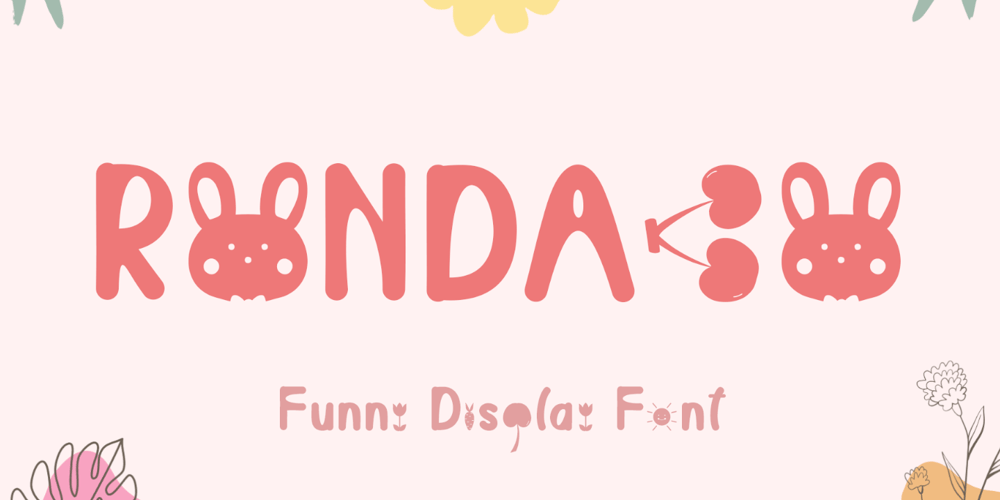
Rondabo Font Family was designed by Isroni Yoga Prasetya and published by Yoga Letter. Rondabo contains 1 styles and family package options. “Rondabo” is a cute display font with cute doll headdresses, cherries, a smiling sun, tulips, carrots, and cute bunny ears. This font can be used for spring, Easter, book titles, movie titles, cartoons, magazines, logos, and more. This font is equipped with upper- and lower-case letters, numerals, punctuation, and multilingual support.